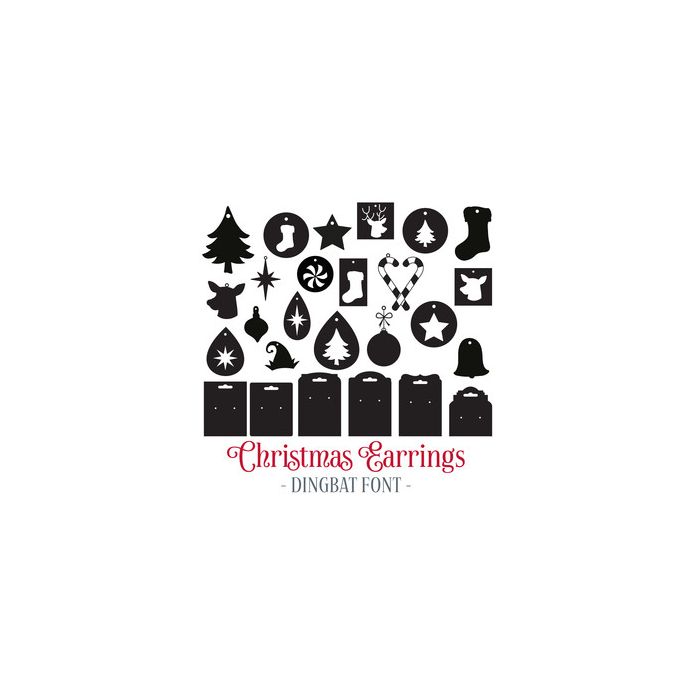
Christmas Earrings Dingbat Font. With 20 Christmas earring elements and 6 backing cards ready to make your own jewellery. All elements are allocated to upper and lowercase letters and can be accessed via the glyphs panel / character map.